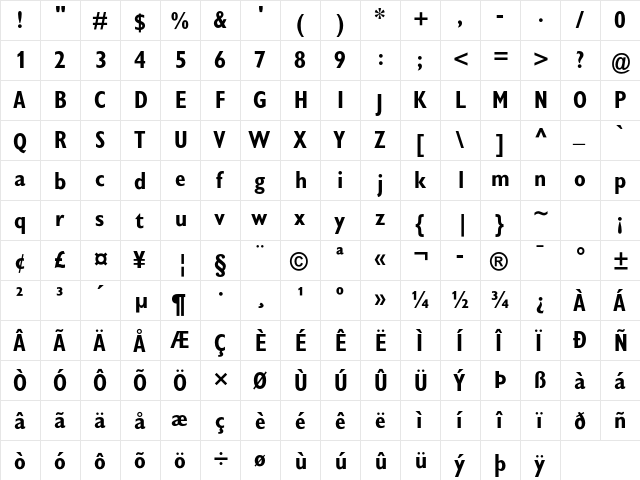
Gill Sans Display MT Std Bold Condensed Font Preview
Gill Sans Display MT Std Bold Condensed
Design Context for Gill Sans Display MT Std Typeface
Gill Sans Display MT Std brings ornamental detail and strong personality to headlines and identities, where visual impact matters more than quiet functionality. The heavy weight commands attention and anchors typographic hierarchies.
Font Pairing: Pair with a clean neutral sans-serif for body copy to let Gill Sans Display MT Std's character lead without overwhelming the composition.
Pro Tip: Use Gill Sans Display MT Std exclusively at display sizes — it was designed to be seen, not read at length. Let a neutral companion handle body copy.